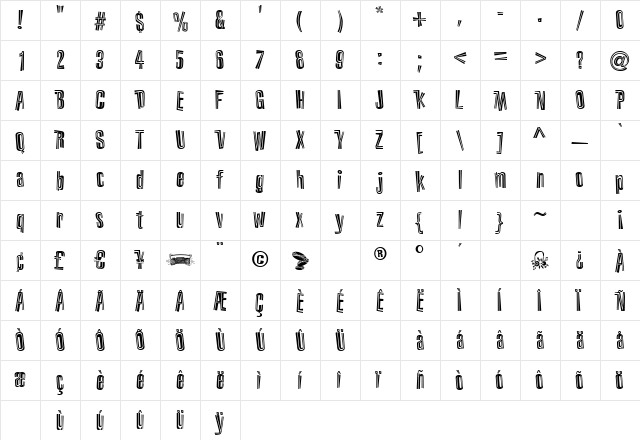
Beat Street InLine Regular
Design Context for Beat Street InLine Typeface
Beat Street InLine brings ornamental detail and strong personality to headlines and identities, where visual impact matters more than quiet functionality.
Font Pairing: Pair with a clean neutral sans-serif for body copy to let Beat Street InLine's character lead without overwhelming the composition.
Pro Tip: Treat Beat Street InLine as the centrepiece of your typographic hierarchy. One strong heading set in a decorative face can carry an entire layout.